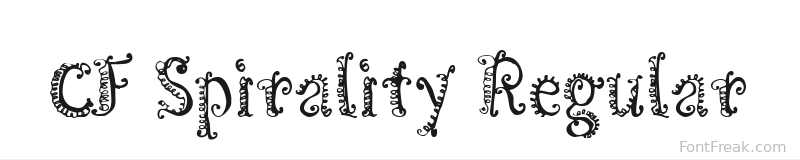
CF Spirality Regular
About CF Spirality Regular
CF Spirality Regular is a decorative font by Cloutierfontes, classified as a display typeface. This unique font features playful, swirling letters that evoke a sense of whimsy and creativity, making it a perfect choice for designs that require a touch of elegance and personality. The visual characteristics of CF Spirality Regular include a moderate stroke weight that provides a balanced appearance, combined with decorative elements that incorporate intricate spirals and flourishes, adding depth and character to each letter. The spacing is generous, enhancing readability while maintaining a light-hearted aesthetic.
This font is ideal for a variety of specific use cases. It shines in wedding invitations, where its ornate style can beautifully convey romance and celebration. CF Spirality Regular is also a great fit for movie posters, particularly for genres that embrace fantasy or artistic themes, as it captures attention and creates a sense of intrigue. Restaurant menus can benefit from this font as well, especially in establishments looking to emphasize a unique dining experience or a quirky brand identity. Additionally, it can be effectively used in greeting cards, where its charming flair adds a personal touch to heartfelt messages.
What sets CF Spirality Regular apart is its ability to combine decorative flair with practicality. The font maintains readability while offering a distinct visual identity, making it an excellent choice for anyone looking to make a memorable impression with their typography. Whether you’re designing for a special occasion or crafting a brand image, this font stands out for its unique personality and versatility.